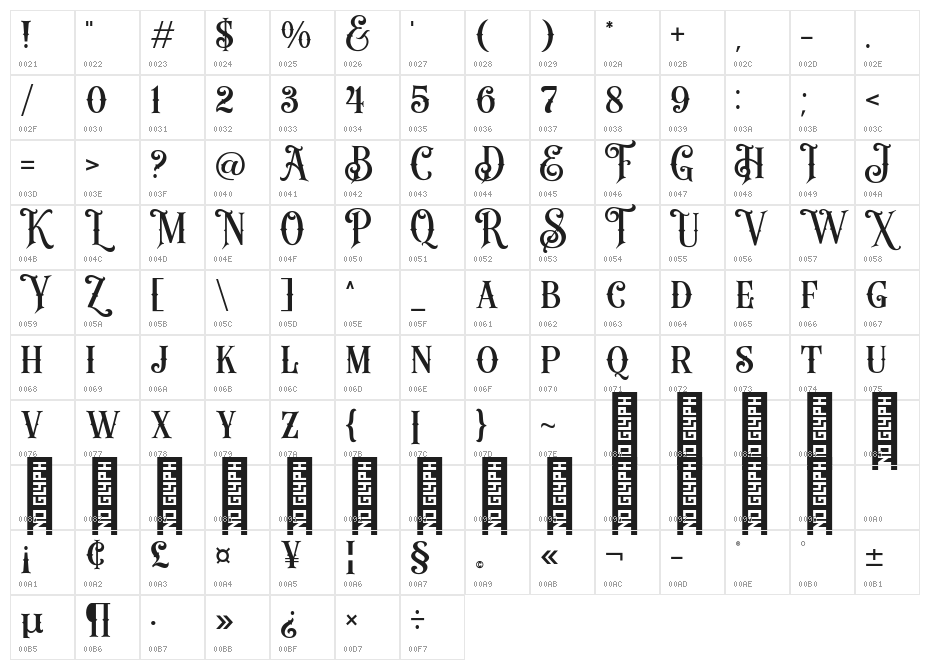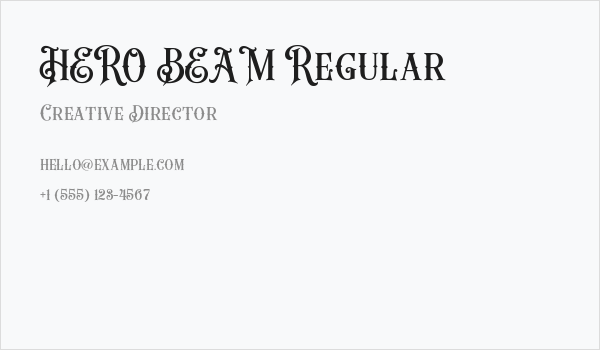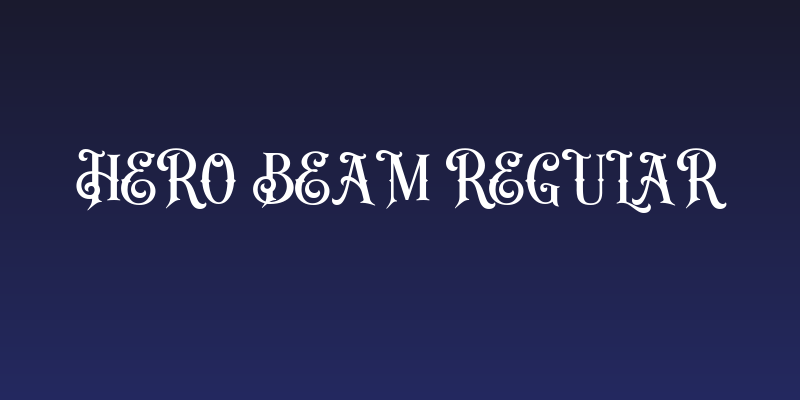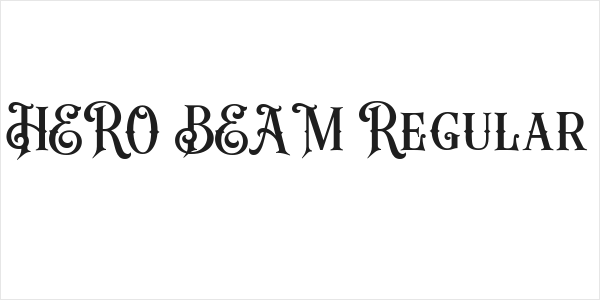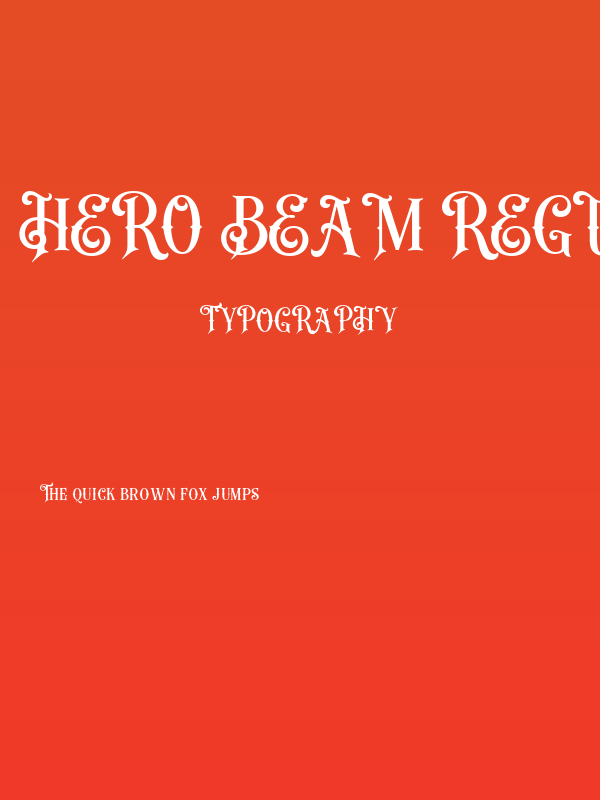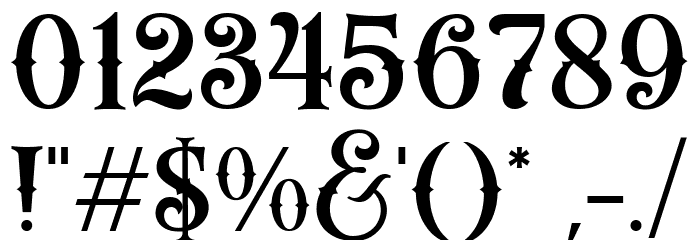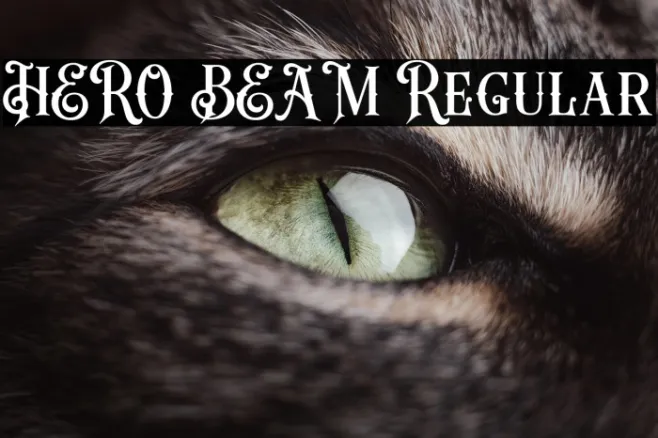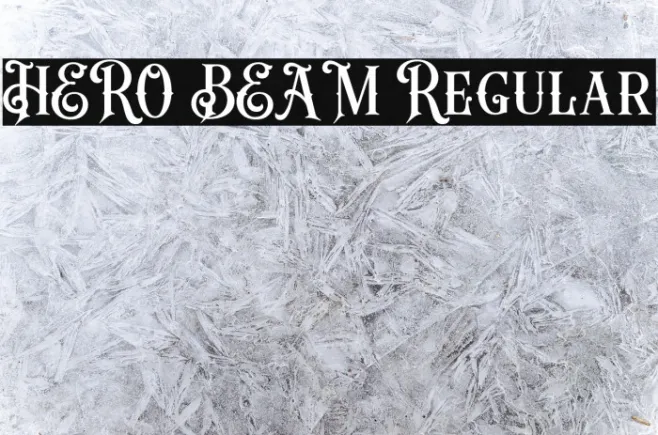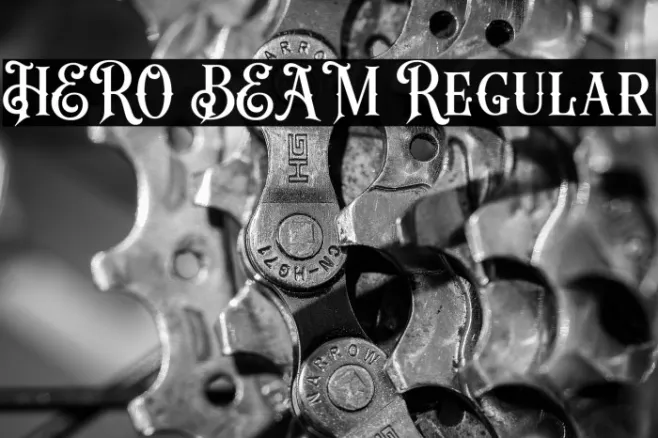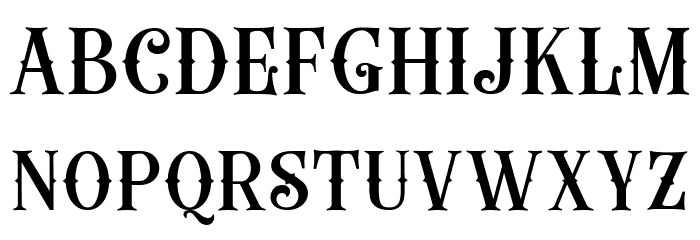
HERO BEAM Regular Font
HERO BEAM Regular Description
This font features a bold and decorative style with intricate details and flourishes that give it a unique and artistic appearance. The uppercase letters are adorned with elegant swirls and curves, adding a touch of sophistication and creativity. The lowercase letters maintain a consistent style, complementing the uppercase with their own subtle embellishments. The numbers are equally ornate, making them stand out with their decorative elements. Special characters are designed with flair, enhancing the overall aesthetic. This font is perfect for projects that require a touch of elegance and artistic flair.
| Use Case | Headlines, Logos, Artistic projects |
| Proposed Projects | Ideal for wedding invitations, branding, posters, and artistic projects that require a decorative touch. |